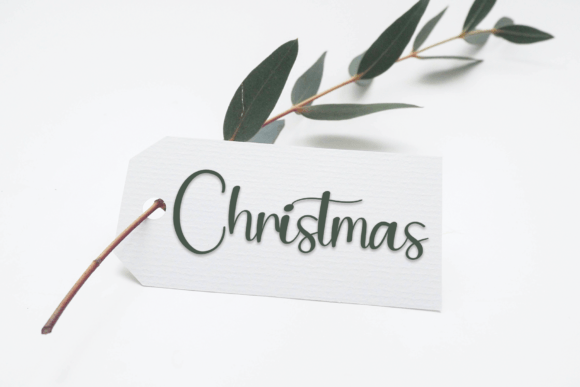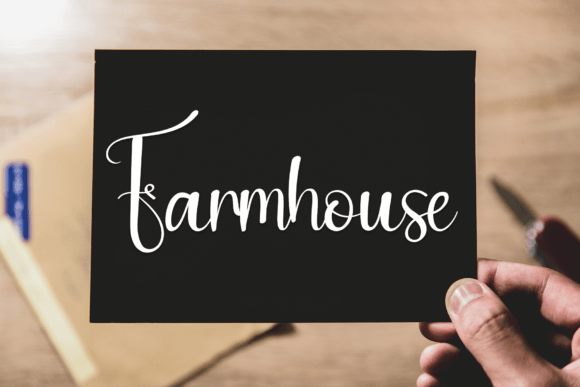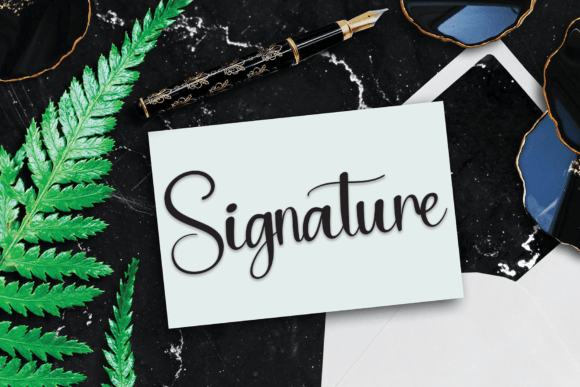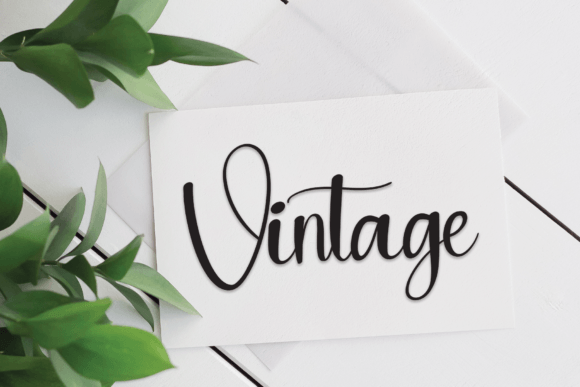
The Perfect Font for Your Creative Projects
Have you ever stared at a blank page, trying to come up with the perfect font to bring your project to life? I know I have. The struggle is real, especially when you want your design to convey a sense of warmth and friendliness. That’s where the Butterfly Font comes in – a simple yet effective handwritten font that’s sure to make your creations stand out.
This versatile font is perfect for a variety of projects, from crafting handmade cards to designing digital presentations. Its friendly and approachable style makes it an ideal choice for designers who want to add a personal touch to their work. Whether you’re a seasoned pro or just starting out, the Butterfly Font is a valuable addition to your design toolkit.
Butterfly Font Key Features
- Font Style: A beautiful, elegant script font with a whimsical touch, perfect for creating a sense of wonder and magic.
- Unique Characteristics: The font features intricate, hand-drawn details and subtle texture, giving it a unique and organic feel.
Butterfly Font Review
Overall, I have mixed feelings about the Butterfly Font. It’s a beautiful, elegant script font that’s perfect for creating a whimsical and romantic atmosphere in your designs. ✨ The fluid connections between letters make it a great choice for titles, headings, and even logotypes.
- The Butterfly Font’s most notable feature is its intricate, organic feel, which adds a touch of sophistication to any design.
- It’s a great choice for designers who want to create a sense of movement and fluidity in their work.
- The font is available in a range of weights and styles, making it easy to find the perfect fit for your project.
However, there are some limitations to consider. ⚠️ The font can be a bit difficult to read at small sizes, and the connections between letters can sometimes make it hard to distinguish between individual characters.
Overall, I think the Butterfly Font is a great choice for designers who want to add a touch of elegance and whimsy to their work. While it may have some limitations, its unique features and range of styles make it a valuable addition to any design library.
Tips for Getting the Most Out of the Butterfly Font
Use the Butterfly Font to create whimsical and playful designs that evoke a sense of freedom and elegance. Experiment with different font sizes and colors to create visual interest and emphasis.
The Butterfly Font is ideal for:
- Children’s book illustrations and design
- Event and party invitations